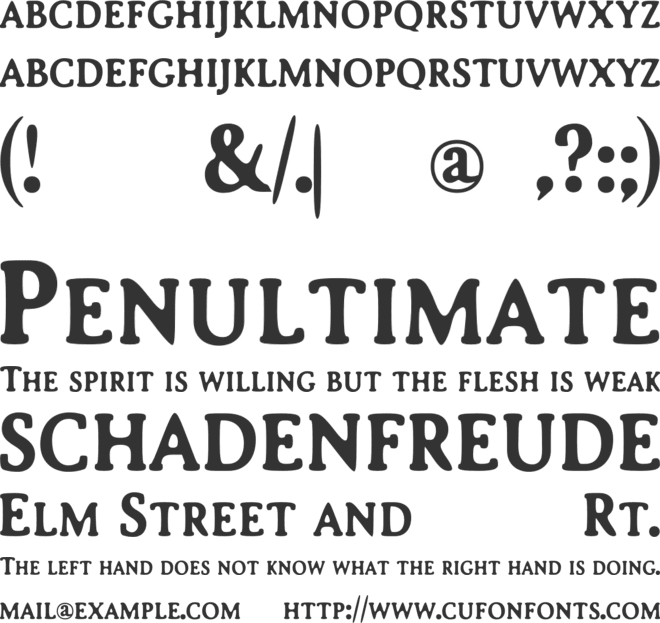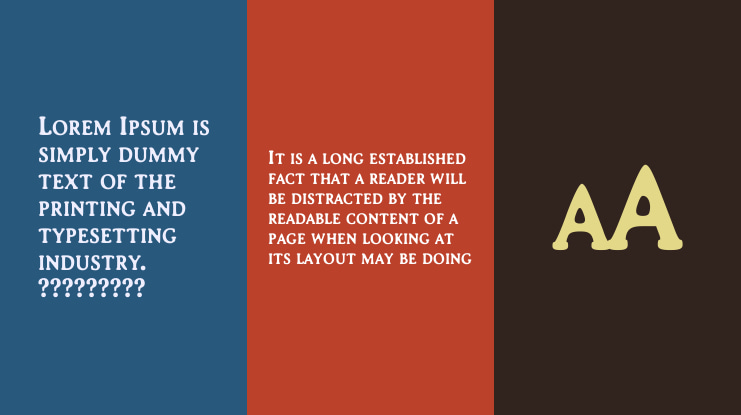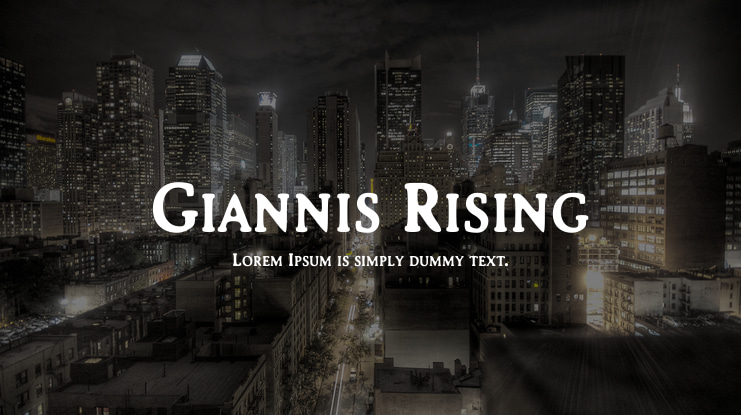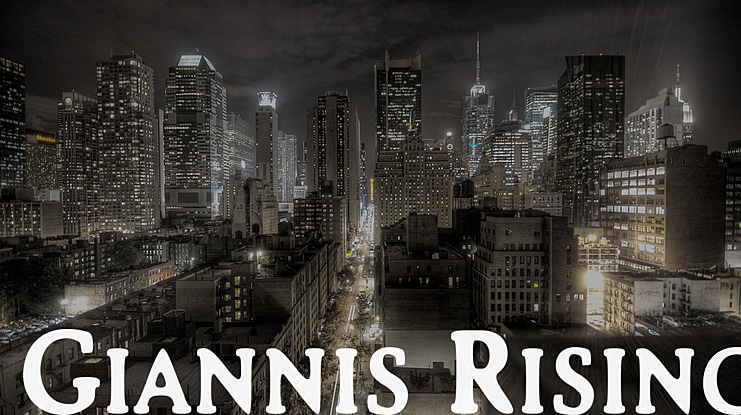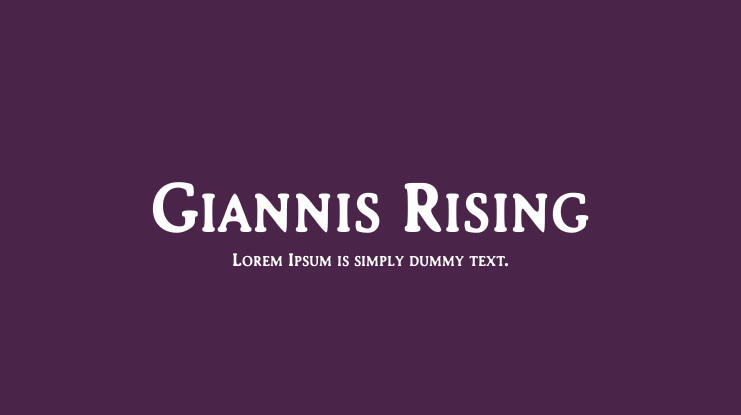
Giannis Rising Font
Giannis Rising is a fun and playful font. It can be used to add a casual touch to your designs.
It’s suitable for branding, advertising, displays, posters, logos, movie titles, book covers, and much more!